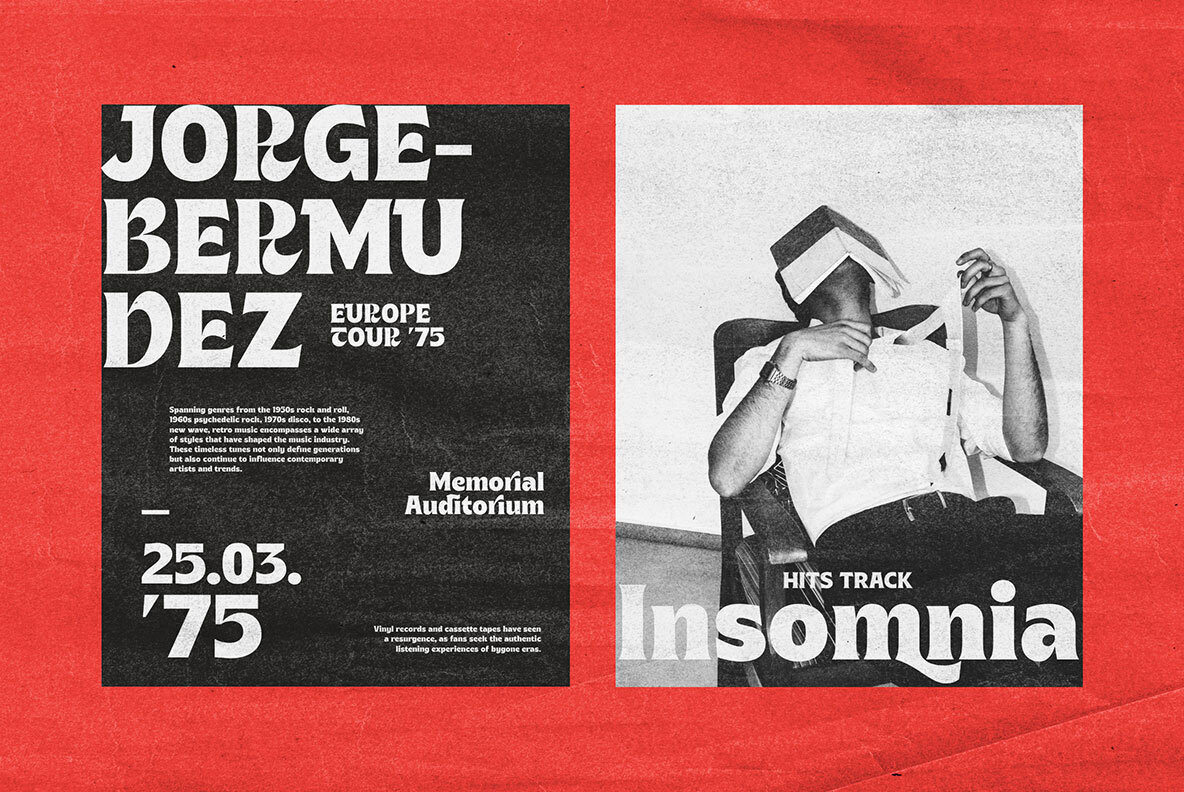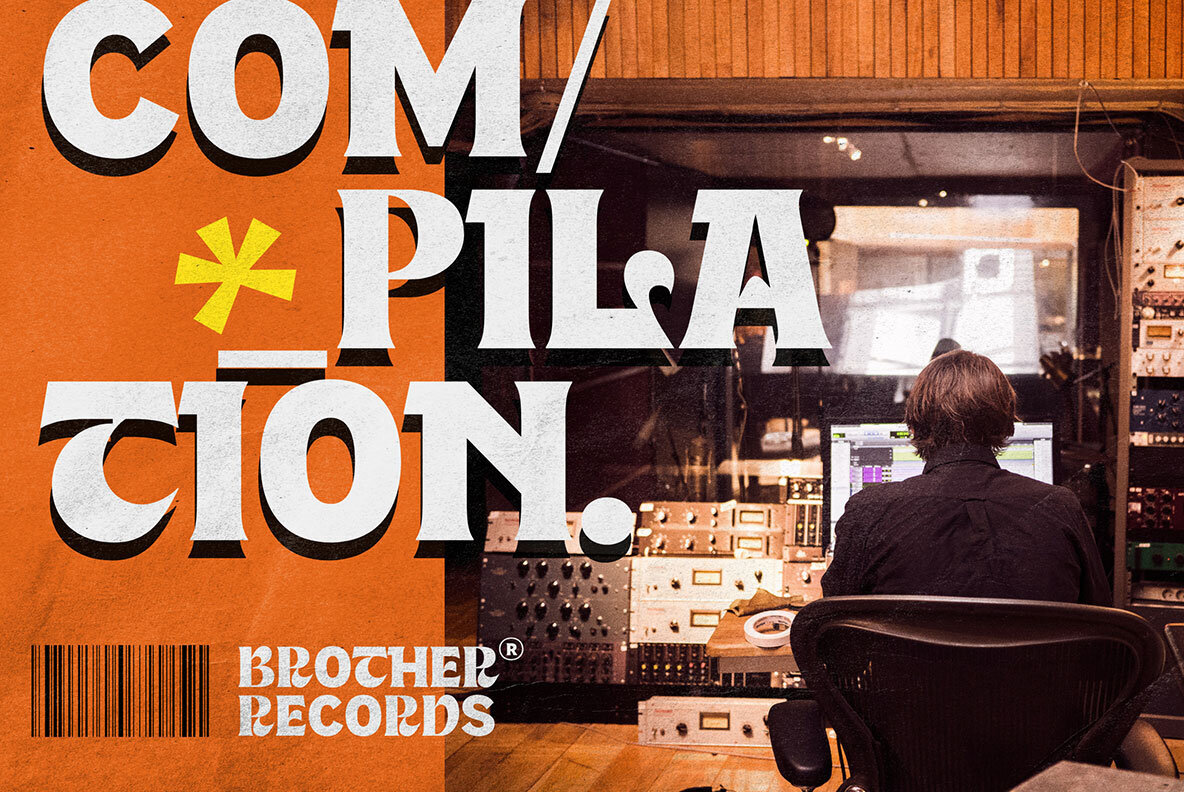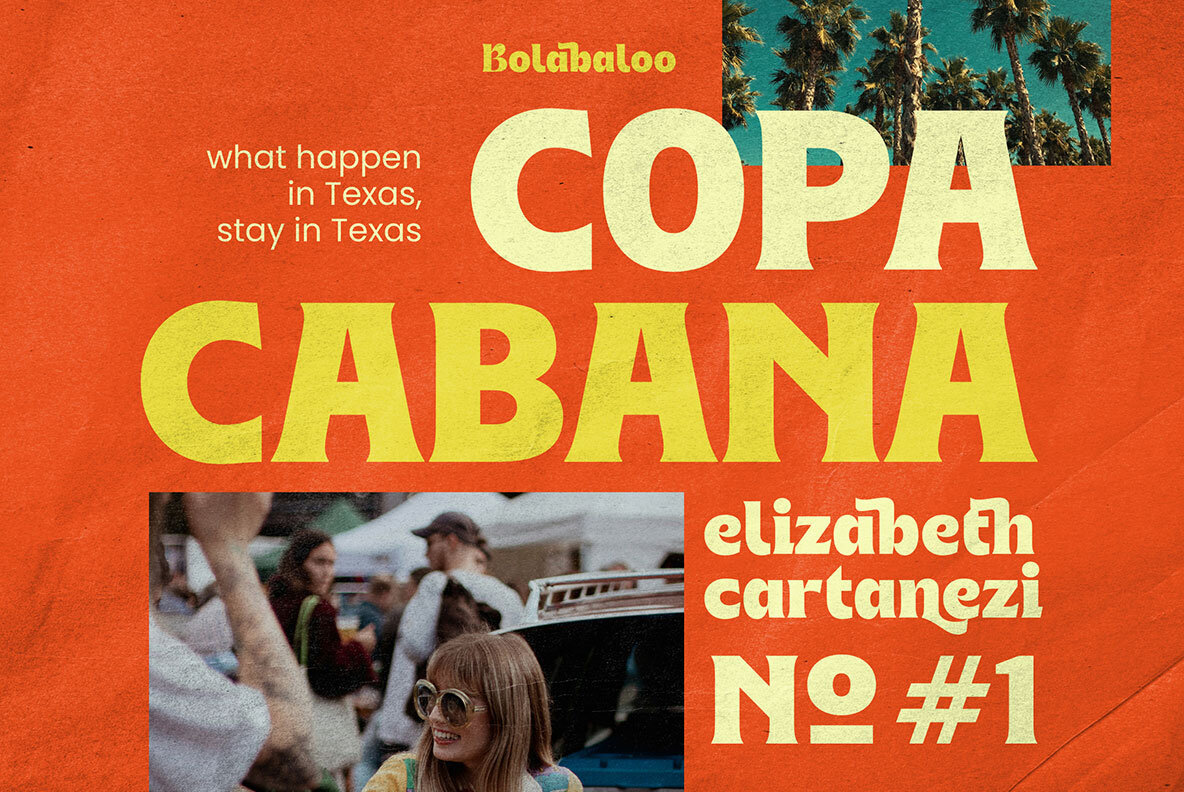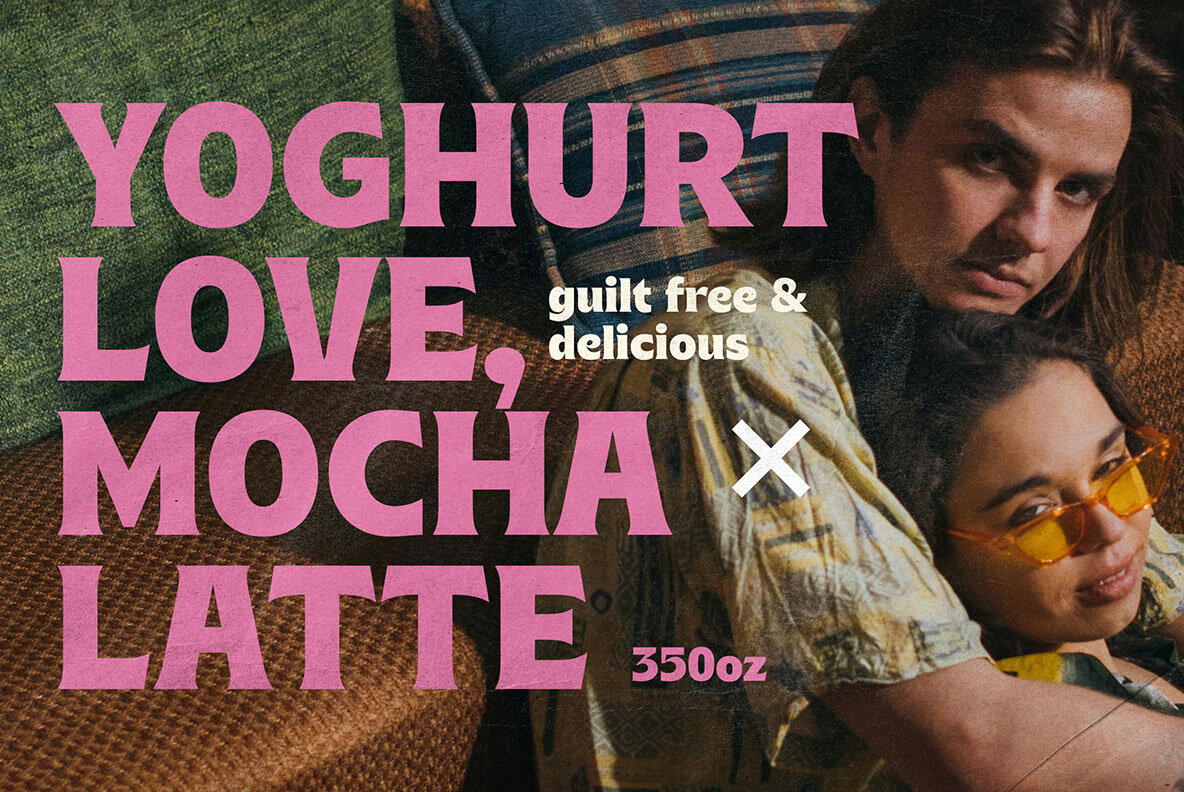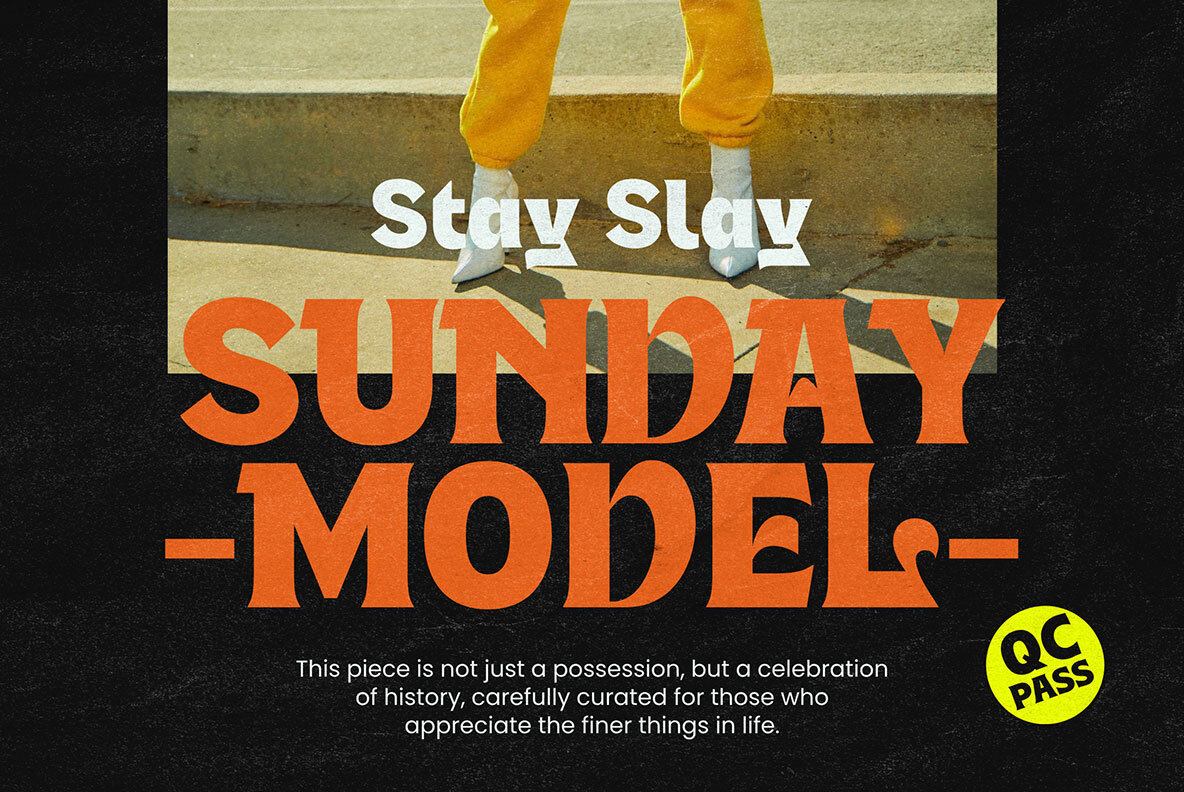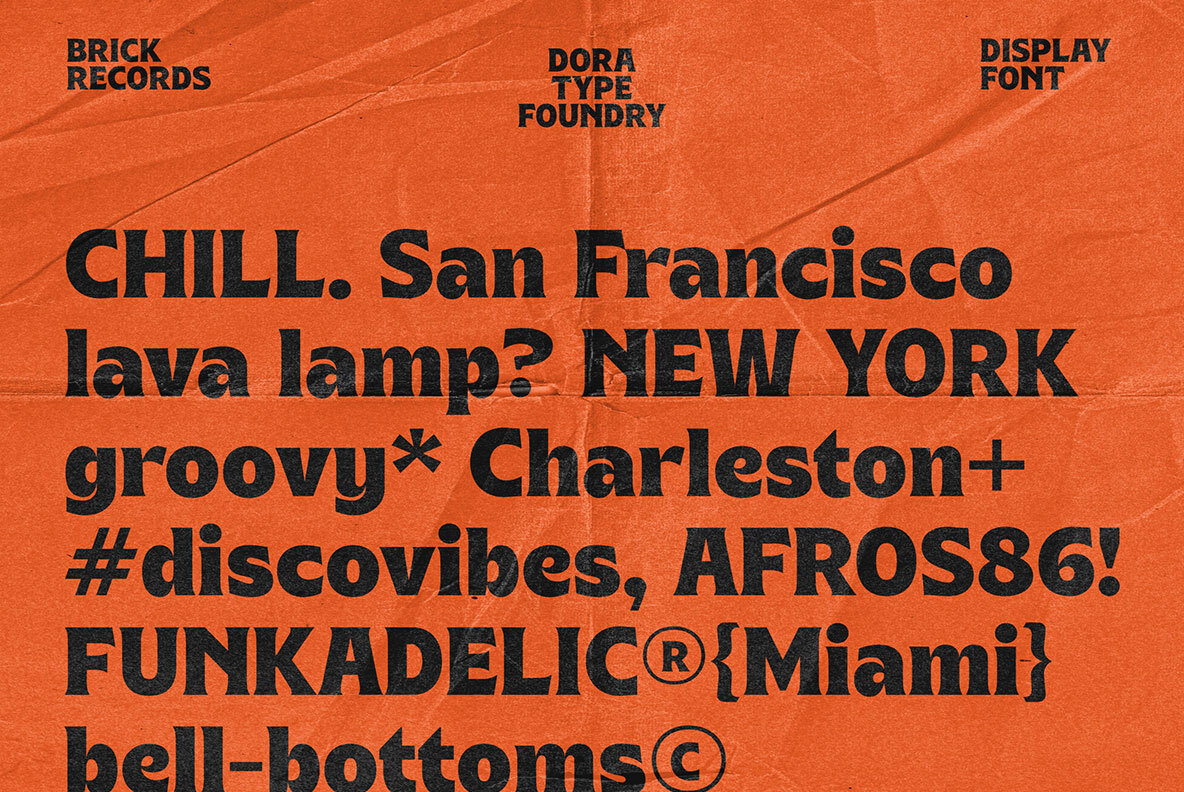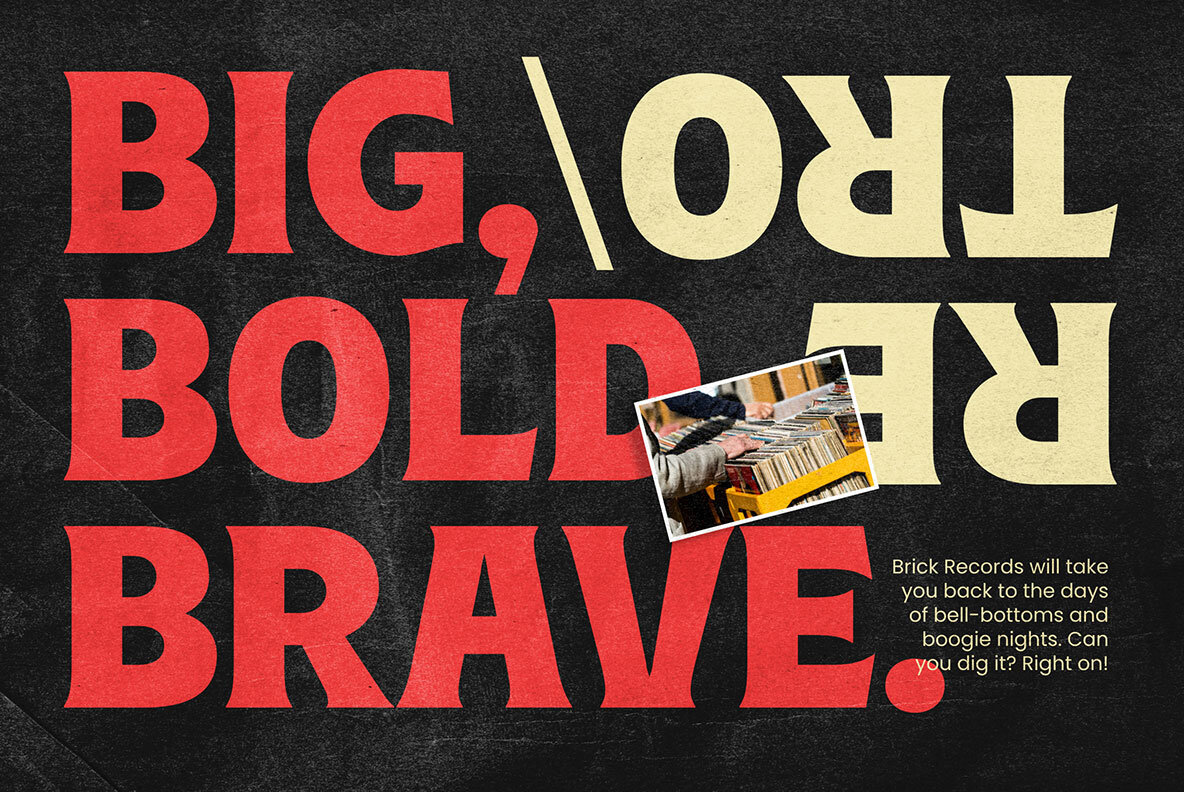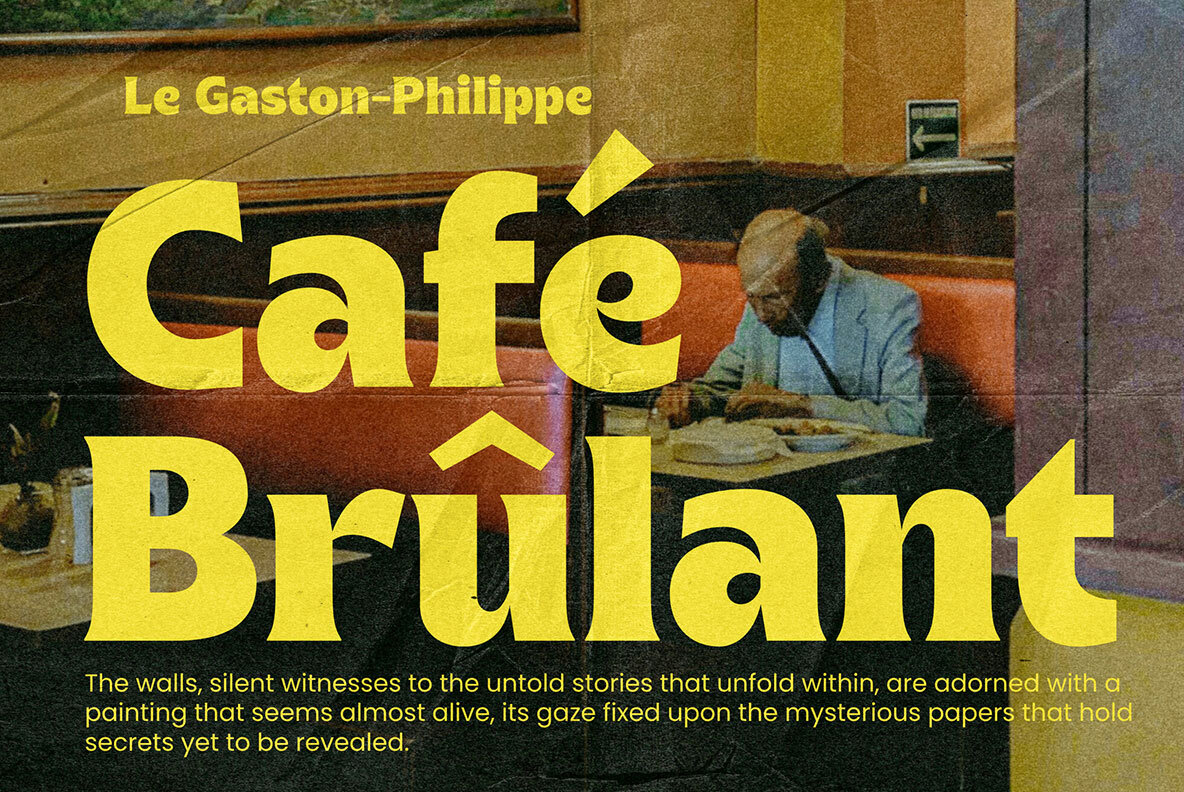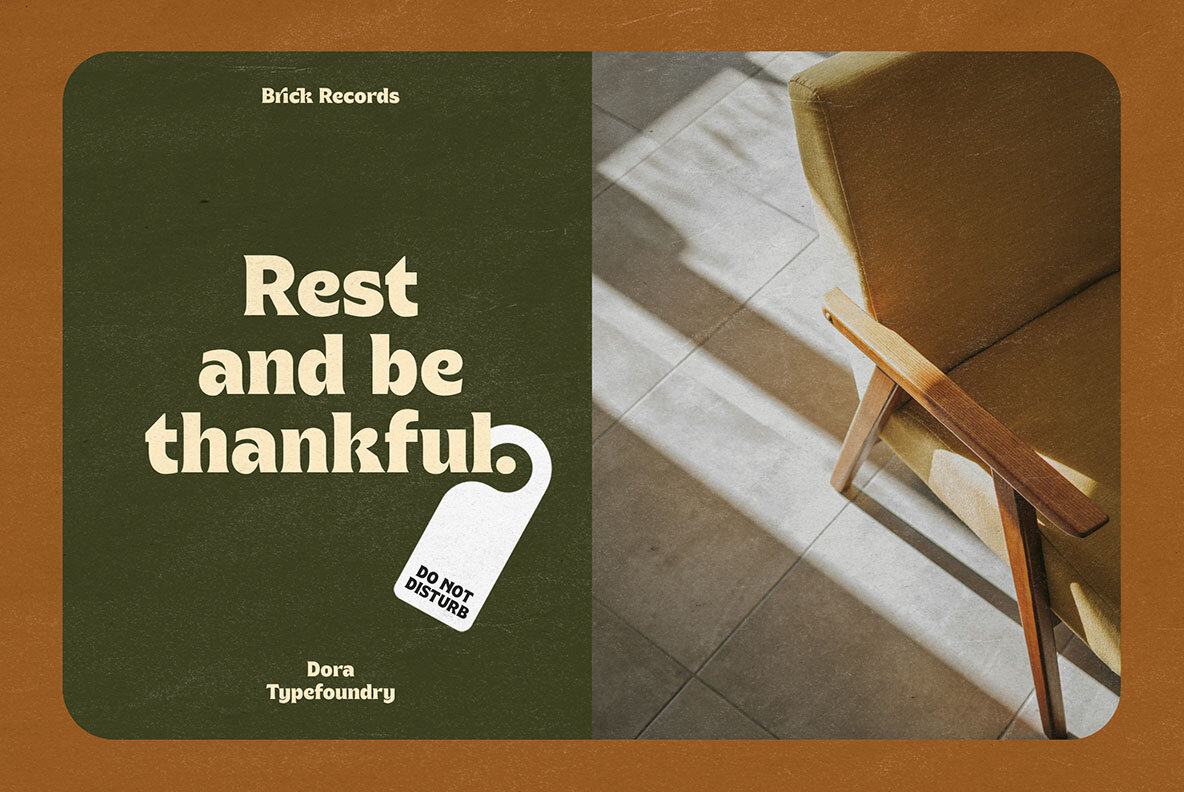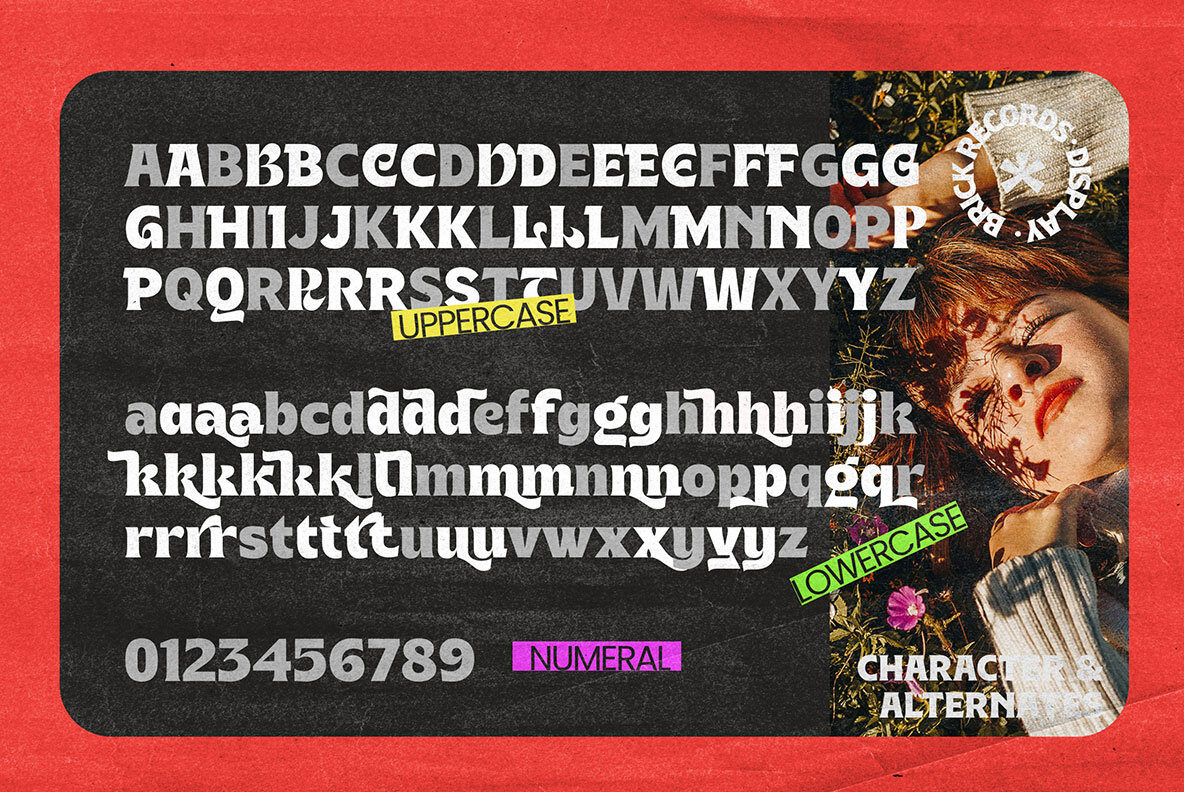
Brick Records Font
Brick Records Regular
Brick Records is a bold serif typeface with a vintage and retro look! You'll definitely love this font that gives off a sophisticated feel even with all its playfulness. equipped with ligatures, the alternative becomes an attractive option. Brick Records is perfect for branding, magazines, web, broadcast, packaging, apparel print, branding, titling, headlines and more. Features We strongly recommend using programs that support OpenType features and Glyphs panels such as Adobe and Corel Draw applications, so you can view and access all variations of Glyphs. Families like this have become a true labor of love, making it as easy and enjoyable as possible. I really hope you enjoy it!